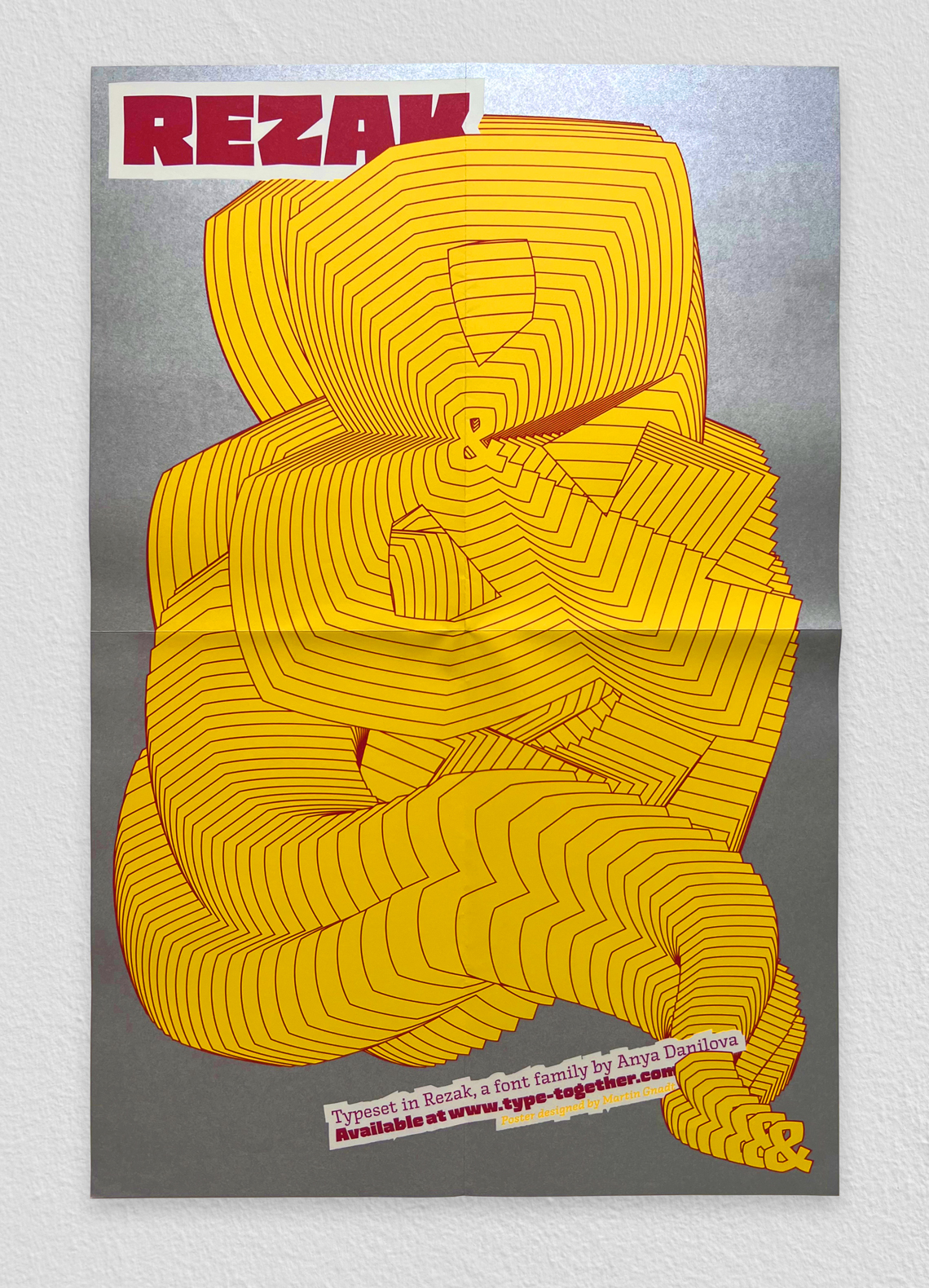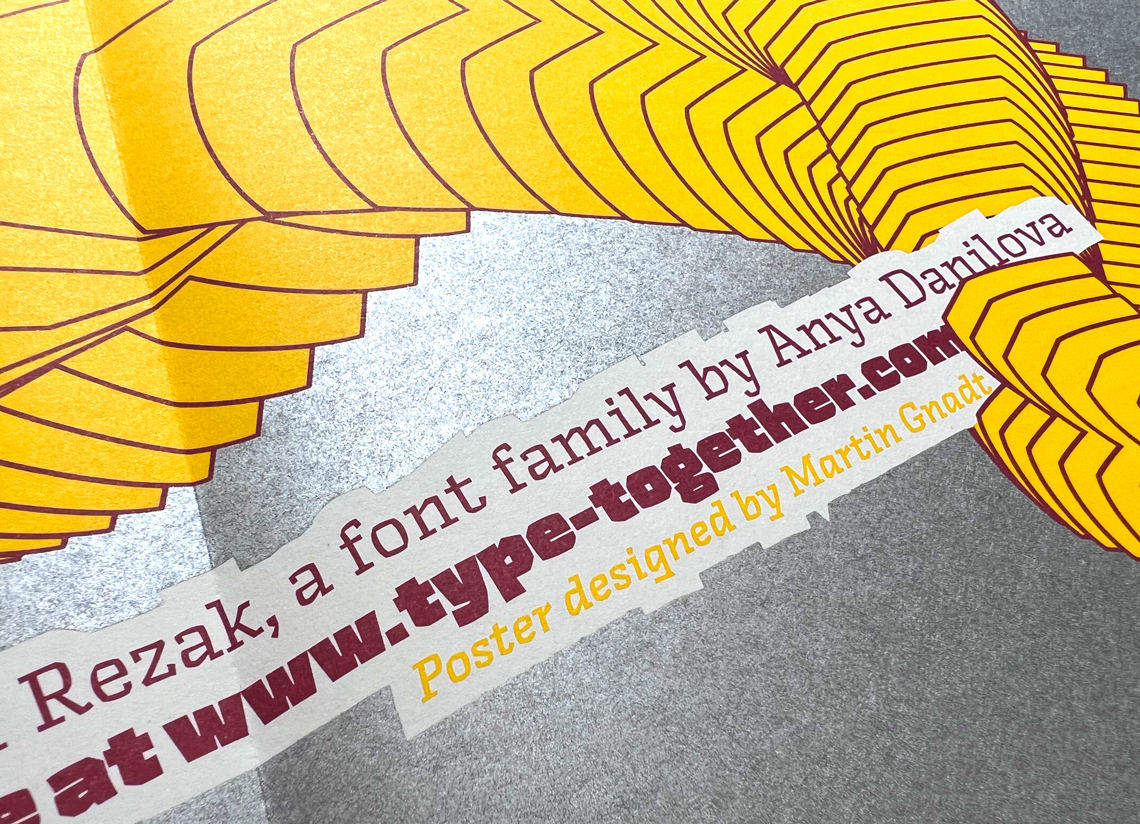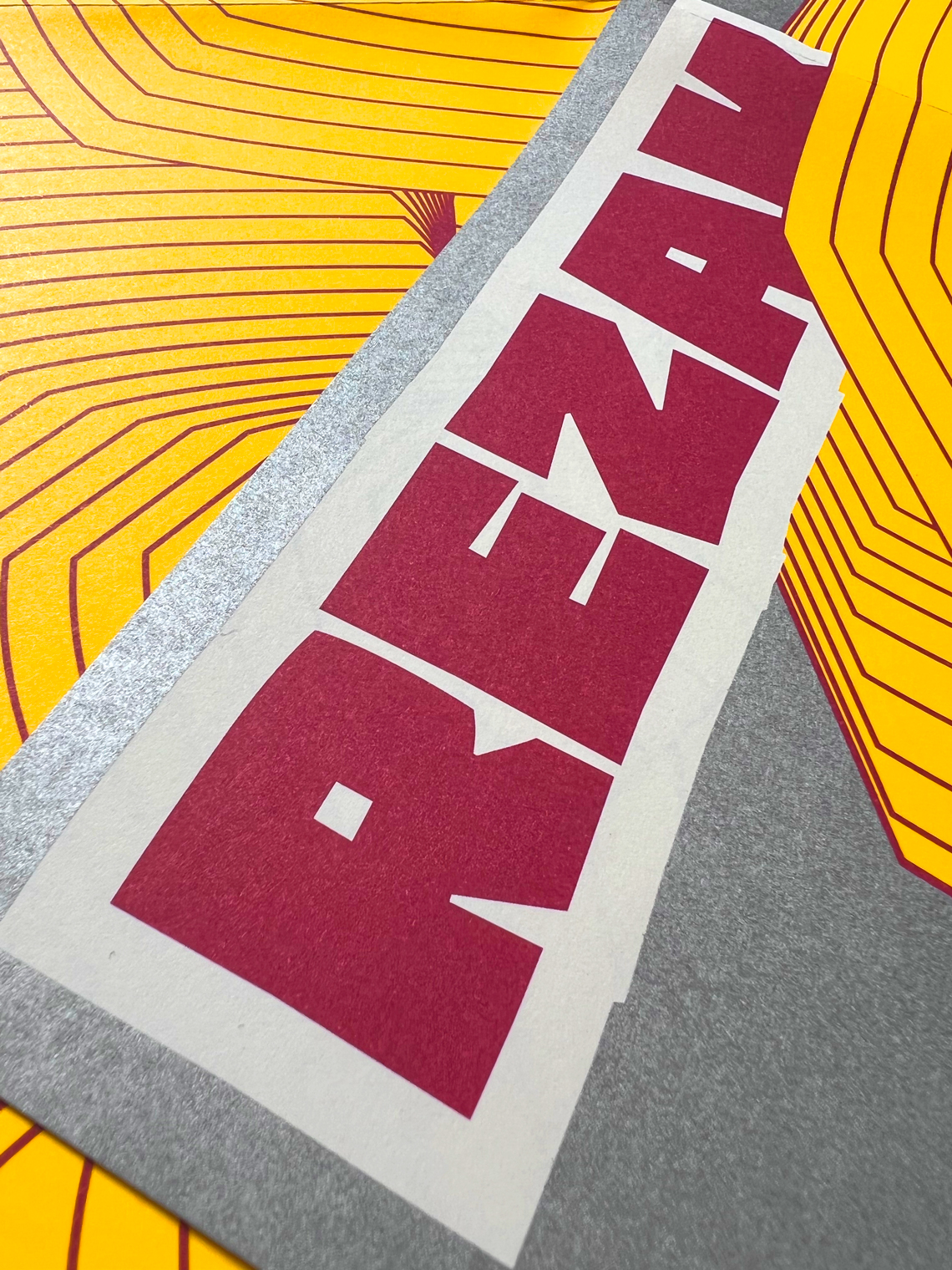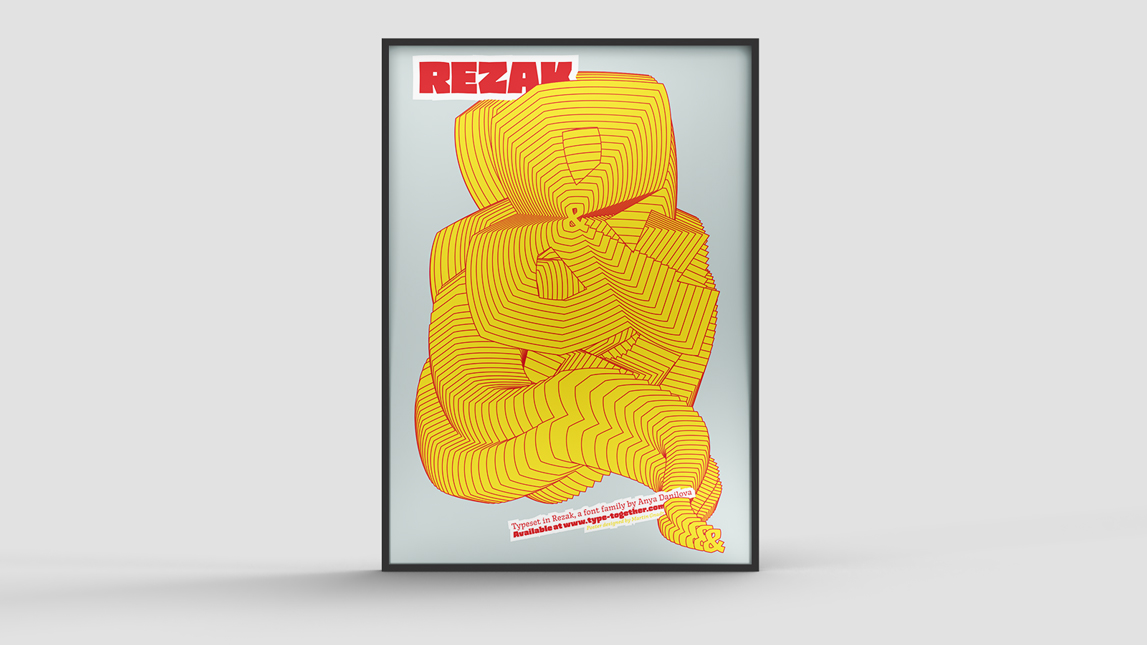
Rezak Poster
Designed by Martin Gnadt. 56x36 cm, three-colour offset print on 100g V Munken Lynx paper.
Rezak Poster
To complement Anya Danilova's Rezak release, we commissioned a new poster from Martin Gnadt that is now available in our store. Just cover the shipping and the poster is yours for free. The design shows movement with a bright yellow ampersand on reflective silver background.